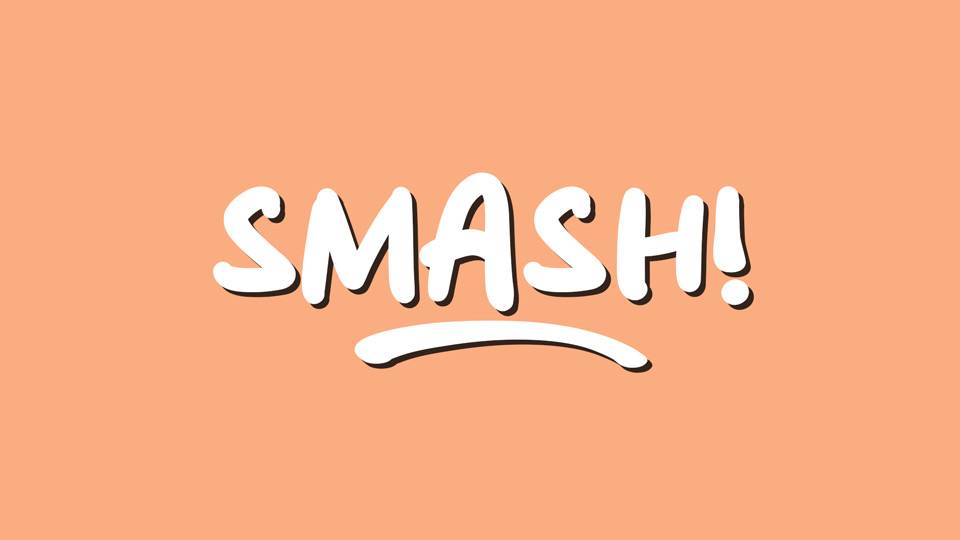
Download Smash font, a simple hand lettered typeface filled with a cheerful, playful spirit. Add a funny and quirky touch to your designs with Smash font.